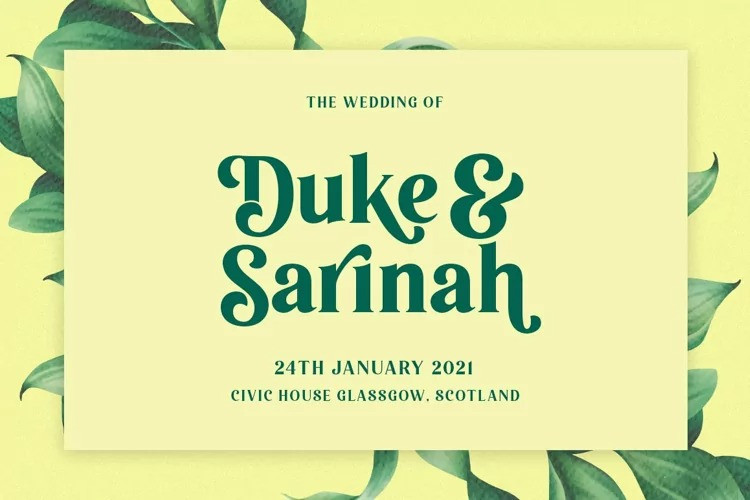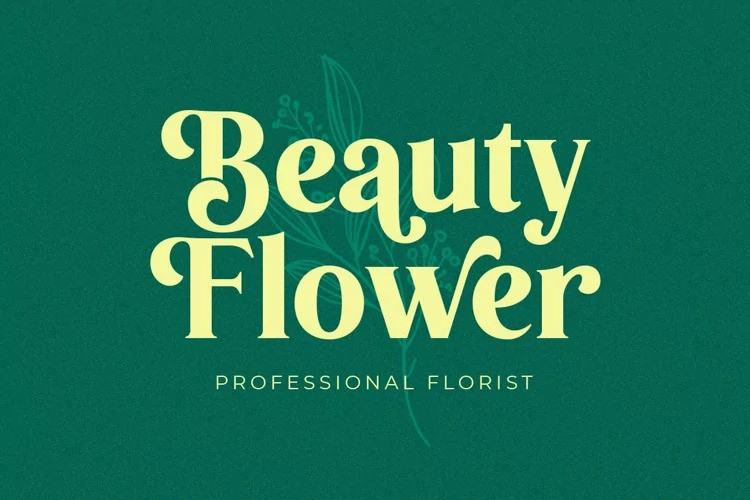
Ravise Font
Hello Everyone, introduce our new product, Ravise Serif Font, is amodern serif font that perfectly suited to stationery, logo, typography quotes, magazine or book cover, website header, clothing, branding, packaging design, and more.